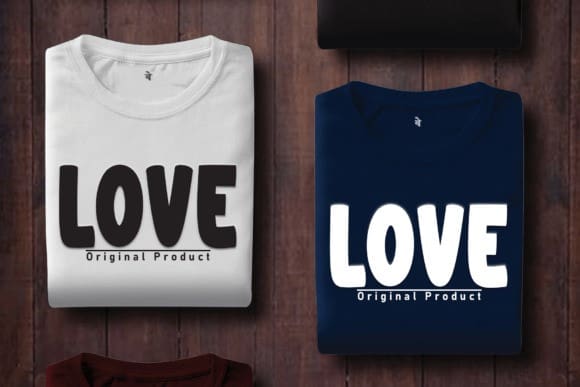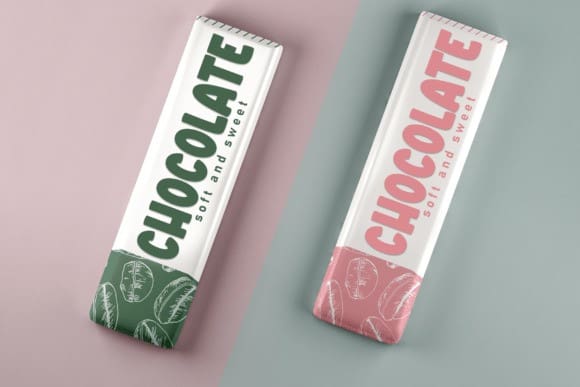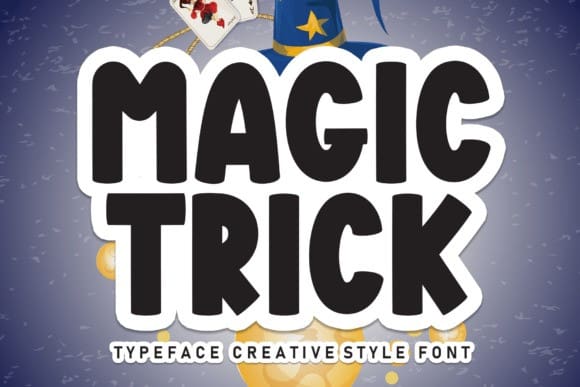
Magic Trick Font
Magic Trick Font is a bold, all caps display font featuring the perfect amount of trendiness. Whether you’re using it for crafting, digital designing, presentations or greeting cards making, it’s perfect!